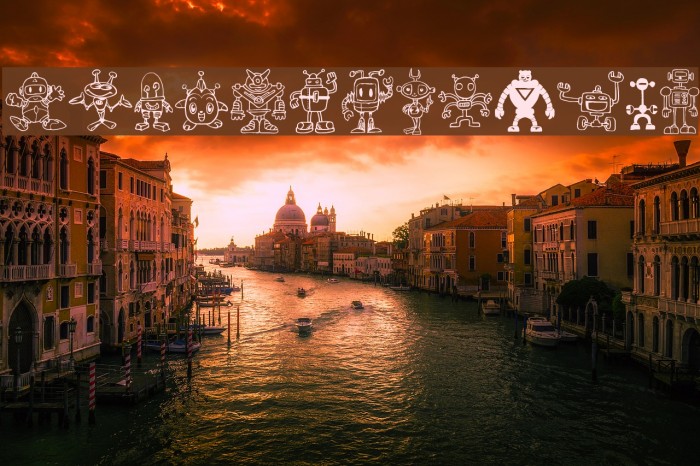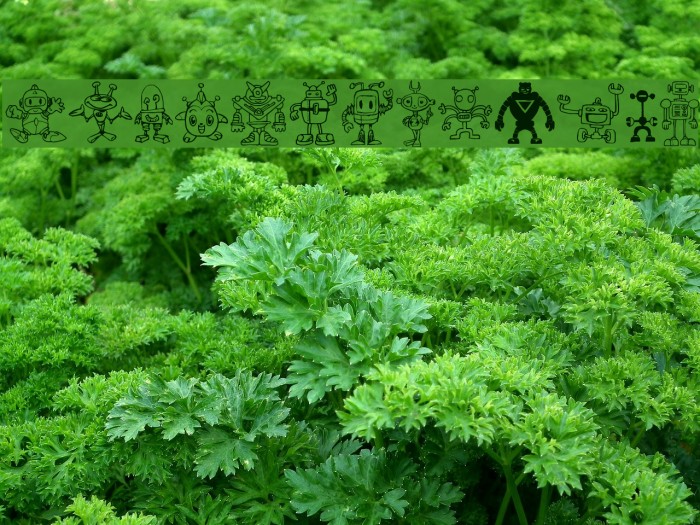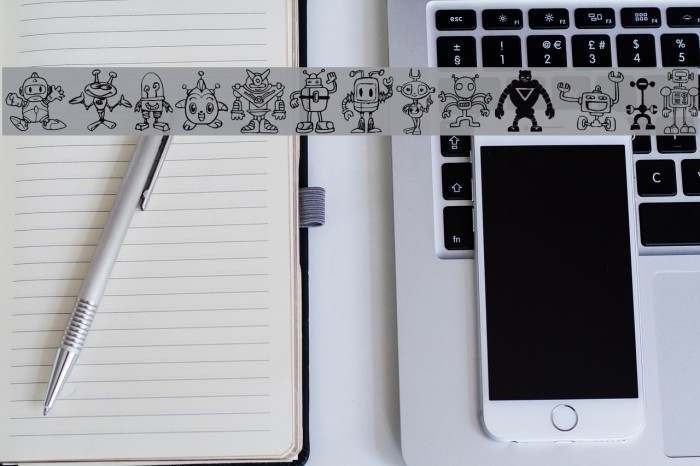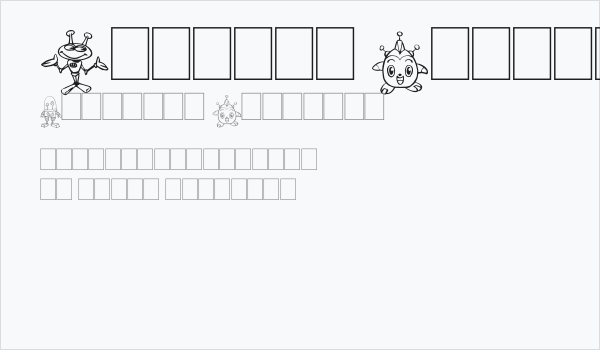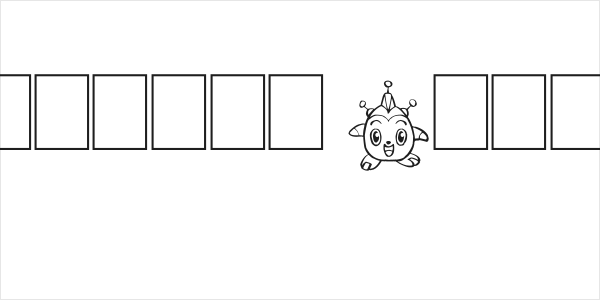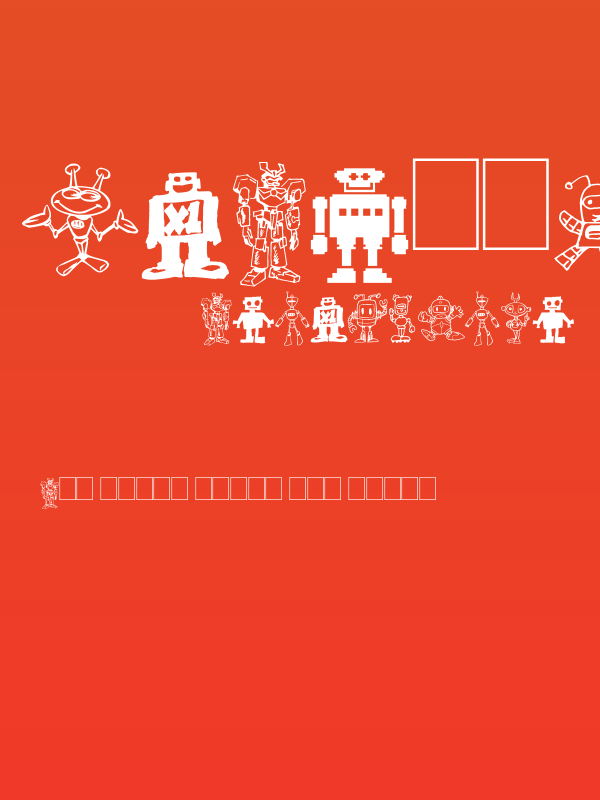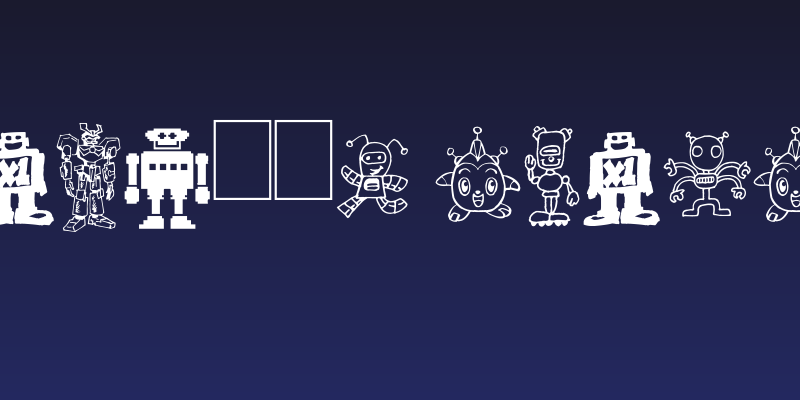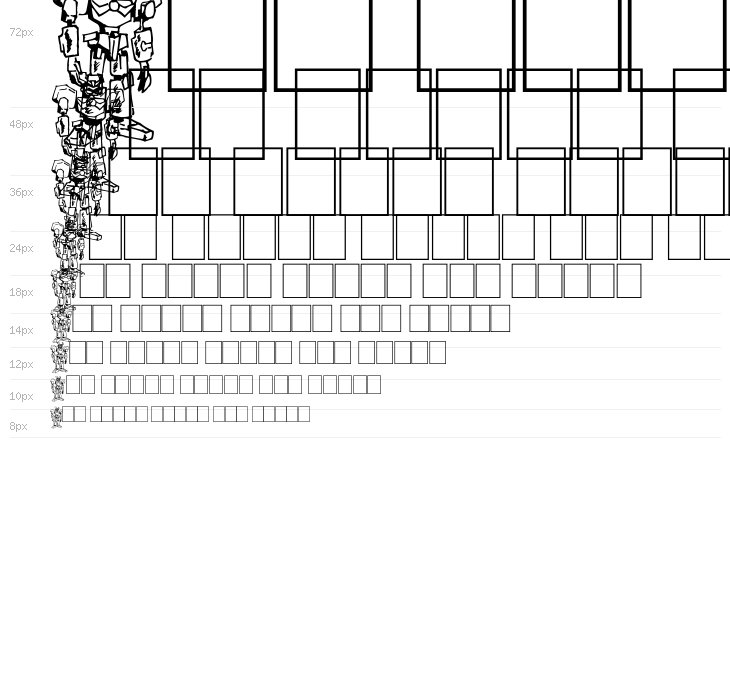
Bots'n Droids Font
Bots'n Droids Description
This font is a playful and imaginative collection of robot-themed characters. Each letter is represented by a unique robot design, showcasing a variety of mechanical and futuristic elements. The designs are detailed, with each robot having distinct features such as antennas, gears, and screens, giving a whimsical and tech-inspired feel. The characters are bold and visually striking, making them stand out with their intricate designs. This font is perfect for projects that require a fun and creative touch, especially those related to technology, science fiction, or children's themes. The overall style is decorative and illustrative, capturing the essence of a futuristic and robotic world.
Use CaseLogos, Posters, Creative Projects
Proposed ProjectsIdeal for children's books, sci-fi posters, tech-themed invitations, and creative branding.